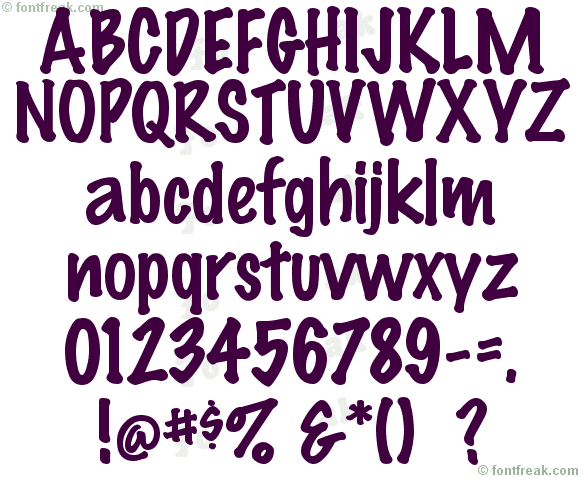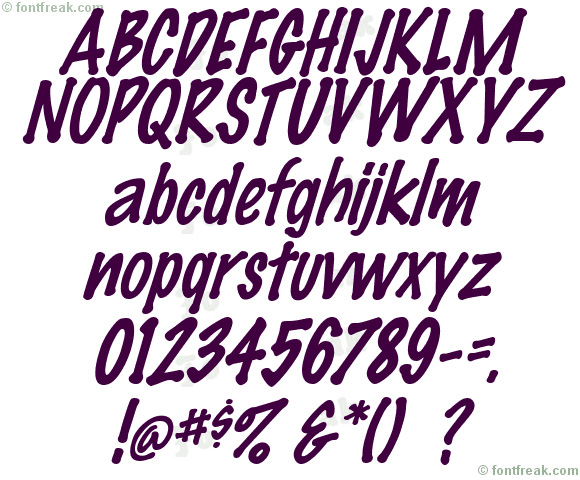
FeltMark Italic
Felt Regular
About FeltMark
FeltMark, designed by Pat Snyder, is a unique display font that embodies a playful yet refined aesthetic. This shareware font features a distinctive handwritten style, characterized by its irregular, organic strokes that evoke a sense of warmth and approachability. The stroke weight is moderately consistent, offering a balance between legibility and artistic flair. The italicization adds a dynamic quality, enhancing its expressiveness. The spacing is thoughtfully crafted, ensuring that each letter flows seamlessly into the next, which contributes to a cohesive and inviting look.
FeltMark is particularly well-suited for a variety of creative applications. Its charming design makes it an excellent choice for wedding invitations, where a personal touch is paramount. Additionally, it works beautifully for children's book covers, where whimsy and playfulness are key. Restaurant menus can also benefit from the font's friendly vibe, making dishes appear more inviting. Furthermore, FeltMark is ideal for branding small businesses, especially those in creative industries like artisanal crafts or boutique shops, where a unique identity is essential.
The target audience for FeltMark includes graphic designers, small business owners, and content creators who seek a font that stands out while maintaining readability. Whether you are designing promotional materials or personal projects, FeltMark offers a fresh and engaging option.
What truly sets the FeltMark font apart is its ability to convey personality without sacrificing clarity. Its handcrafted appearance invites engagement, making it a compelling choice for anyone looking to infuse their work with character. For those interested, the FeltMark font free download allows users to explore its potential in their projects, ensuring that creativity knows no bounds.